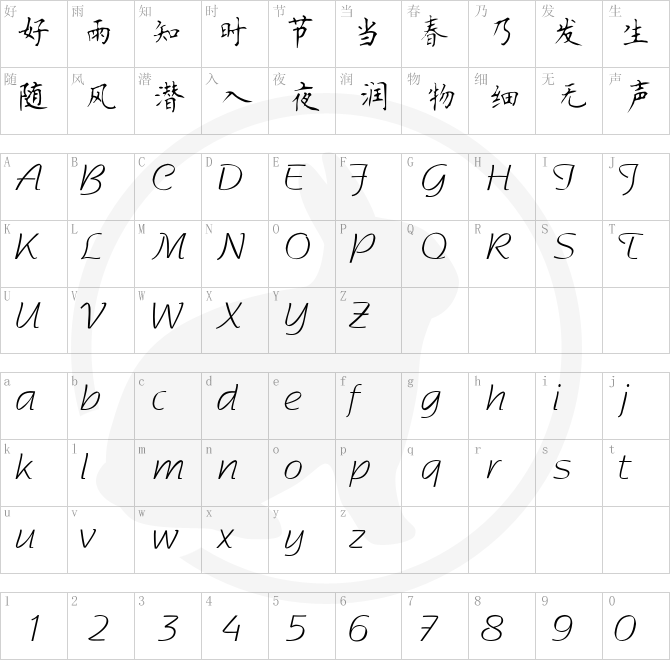
hakuyokaishu7000.ttf is a very beautiful artistic font, hakuyokaishu7000.ttf is widely used in the design and printing of various books and pictures,hakuyokaishu7000.ttf has a strong visual impact,hakuyokaishu7000.ttf is a commonly used font in newspapers, magazines and books, and is used in posters, e-commerce Poster design, store design, logo design, font design and other fields.hakuyokaishu7000.